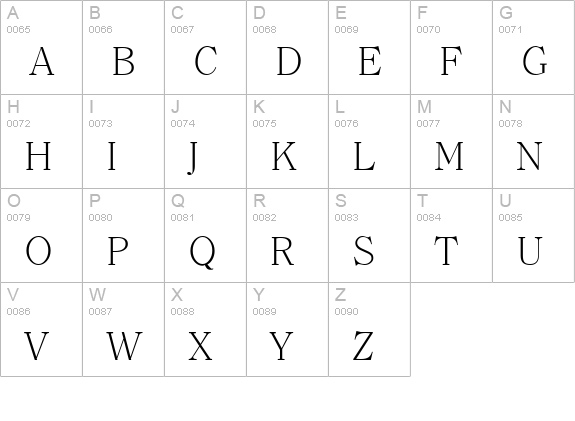
ClearlyRomanLight Regular Font Details
ClearlyRomanLight Regular is the standard, neutral variant in the ClearlyRomanLight typeface family \xE2\x80\x94 well suited to general body text, paragraphs, and standard typographic work.
ClearlyRomanLight Regular is a sleek and modern typeface that exudes elegance and sophistication. Its clean lines and classic design make it a versatile choice for a wide range of projects, from branding to editorial design. With its balanced proportions and graceful curves, ClearlyRomanLight Regular is easy to read and perfect for conveying a sense of professionalism. The best part? This stunning font is available for free download at FontsMarket.com. Whether you're a designer looking to elevate your work or a business owner seeking a polished look for your brand, ClearlyRomanLight Regular is an excellent choice. Don't miss out on the opportunity to add this timeless font to your collection today.